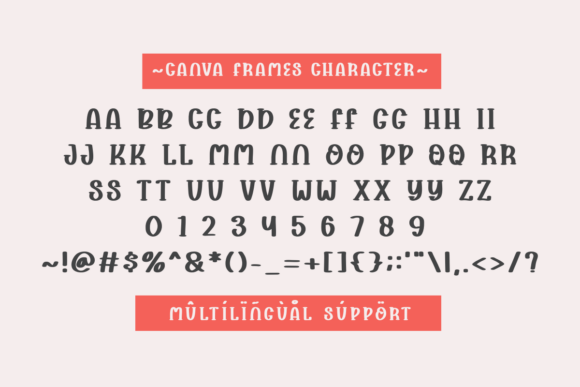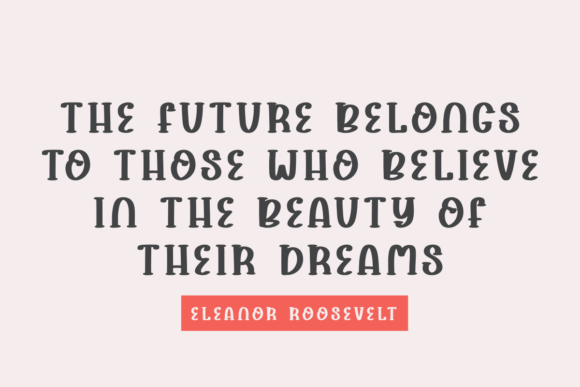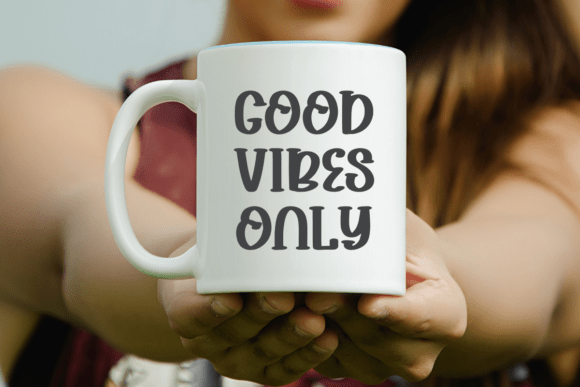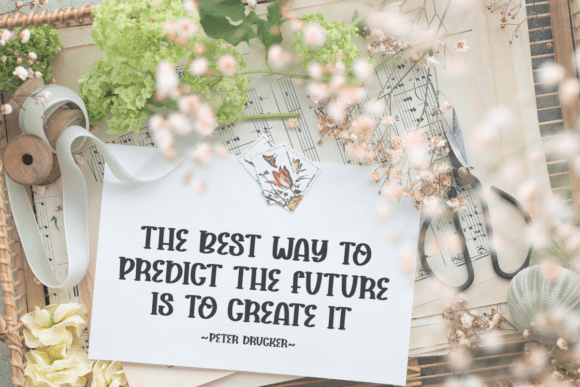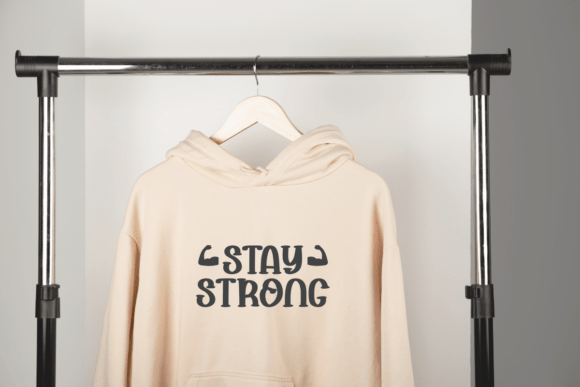
Introducing Canva Frames Font: The Perfect Choice for Designers and Crafters
Are you a designer or crafter looking for a unique and versatile font to elevate your creative projects? Look no further than Canva Frames Font! This adorable and bold slab serif font is perfect for a wide range of applications, from greeting cards and wedding invitations to gift labels, mugs, t-shirts, and more.
What is Canva Frames Font?
Canva Frames Font is a carefully crafted slab serif font that boasts a distinctive, cute, and bold style. Its unique charm makes it an excellent choice for designers and crafters who want to add a personal touch to their projects. Whether you’re creating digital content or physical products, Canva Frames Font is sure to make your designs stand out.
Canva Frames Font is incredibly versatile, making it suitable for a wide range of projects, including:
- Greeting Cards: Add a personal touch to your greeting cards with Canva Frames Font. Its bold and playful style is perfect for birthdays, holidays, and special occasions.
- Wedding Invitations: Make your wedding invitations truly unforgettable with Canva Frames Font. Its elegant and sophisticated style is perfect for formal and informal wedding announcements.
- Gift Labels: Add a touch of personality to your gift labels with Canva Frames Font. Its cute and bold style is perfect for gifts, favors, and more.
- Mugs and T-Shirts: Create eye-catching mugs and t-shirts with Canva Frames Font. Its bold and playful style is perfect for quotes, phrases, and more.
- Labels and More: Use Canva Frames Font to create a wide range of labels, from address labels to product labels. Its versatility and charm make it perfect for any project.
Why Choose Canva Frames Font?
So, why should you choose Canva Frames Font for your next project? Here are just a few reasons:
- Unique Style: Canva Frames Font boasts a unique and distinctive style that’s sure to make your designs stand out.
- Versatility: This font is incredibly versatile, making it suitable for a wide range of projects and applications.
- Easy to Use: Canva Frames Font is easy to use and pairs perfectly with a wide range of other fonts and design elements.
- High-Quality: This font is of exceptionally high quality, ensuring that your designs look professional and polished.
Tips for Using Canva Frames Font
Here are a few tips for getting the most out of Canva Frames Font:
- Experiment with Sizes and Colors: Don’t be afraid to experiment with different sizes and colors to find the perfect combination for your project.
- Pair with Other Fonts: Canva Frames Font pairs perfectly with a wide range of other fonts. Try pairing it with a script font for a elegant look or a sans-serif font for a modern feel.
- Use it for Headlines and Titles: Canva Frames Font is perfect for headlines and titles. Use it to add a touch of personality to your designs.
In conclusion, Canva Frames Font is a versatile and charming slab serif font that’s perfect for designers and crafters. Its unique style, versatility, and high-quality make it an excellent choice for a wide range of projects. Whether you’re creating greeting cards, wedding invitations, gift labels, or more, Canva Frames Font is sure to make your designs stand out. So why wait? Download Canva Frames Font today and start creating spectacular and interesting designs!